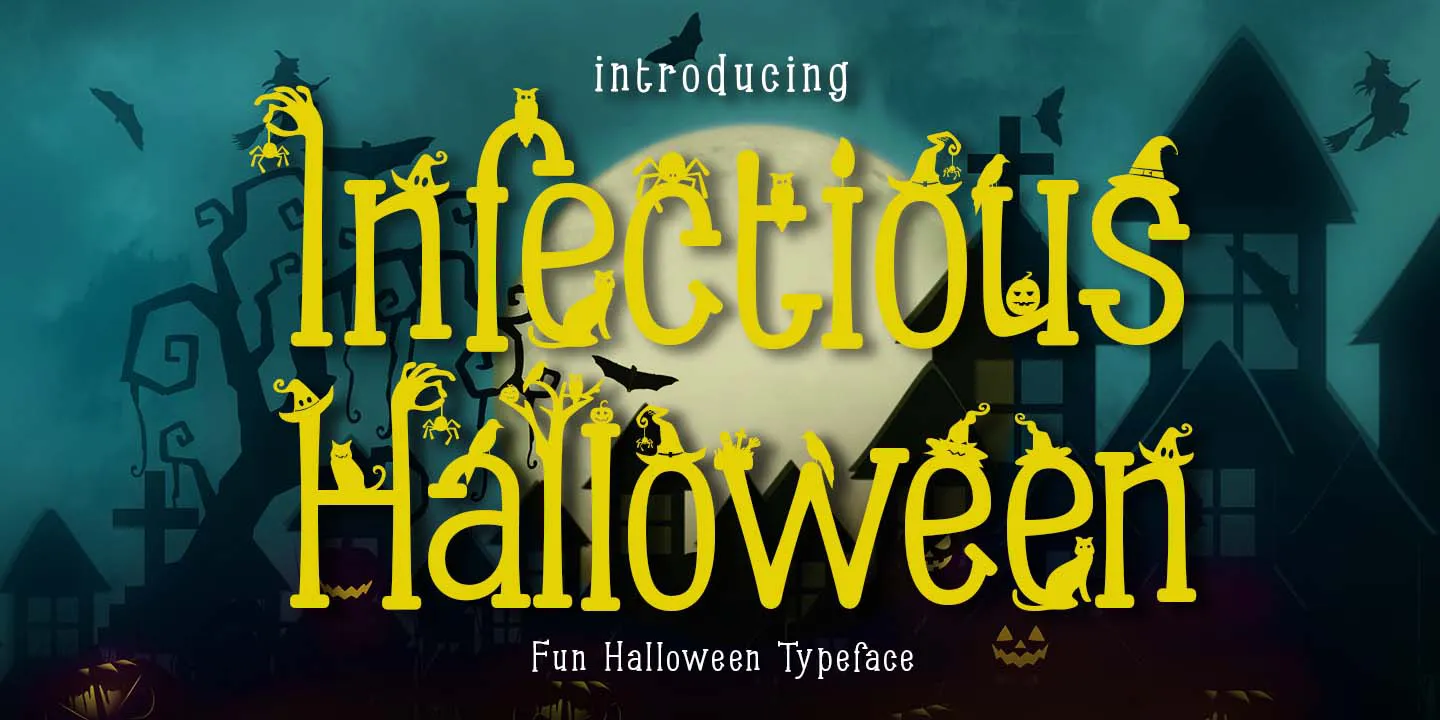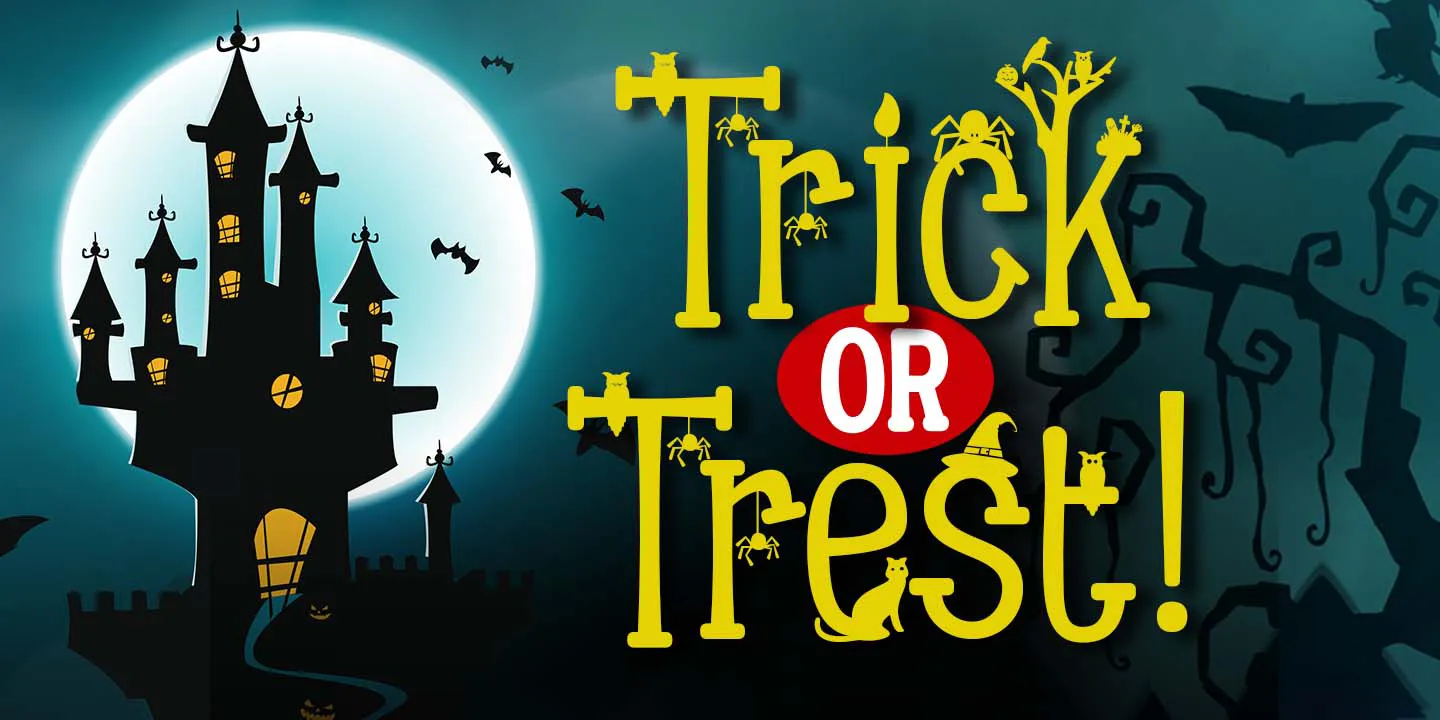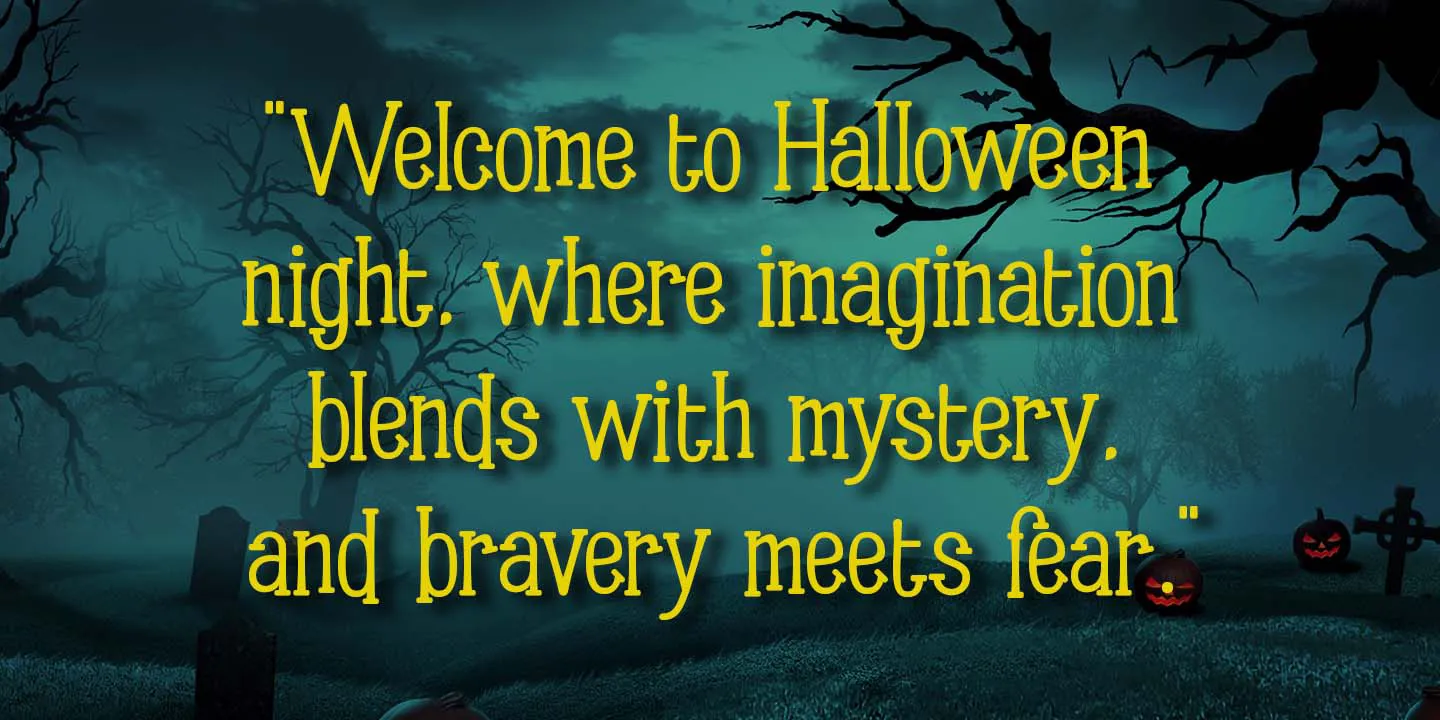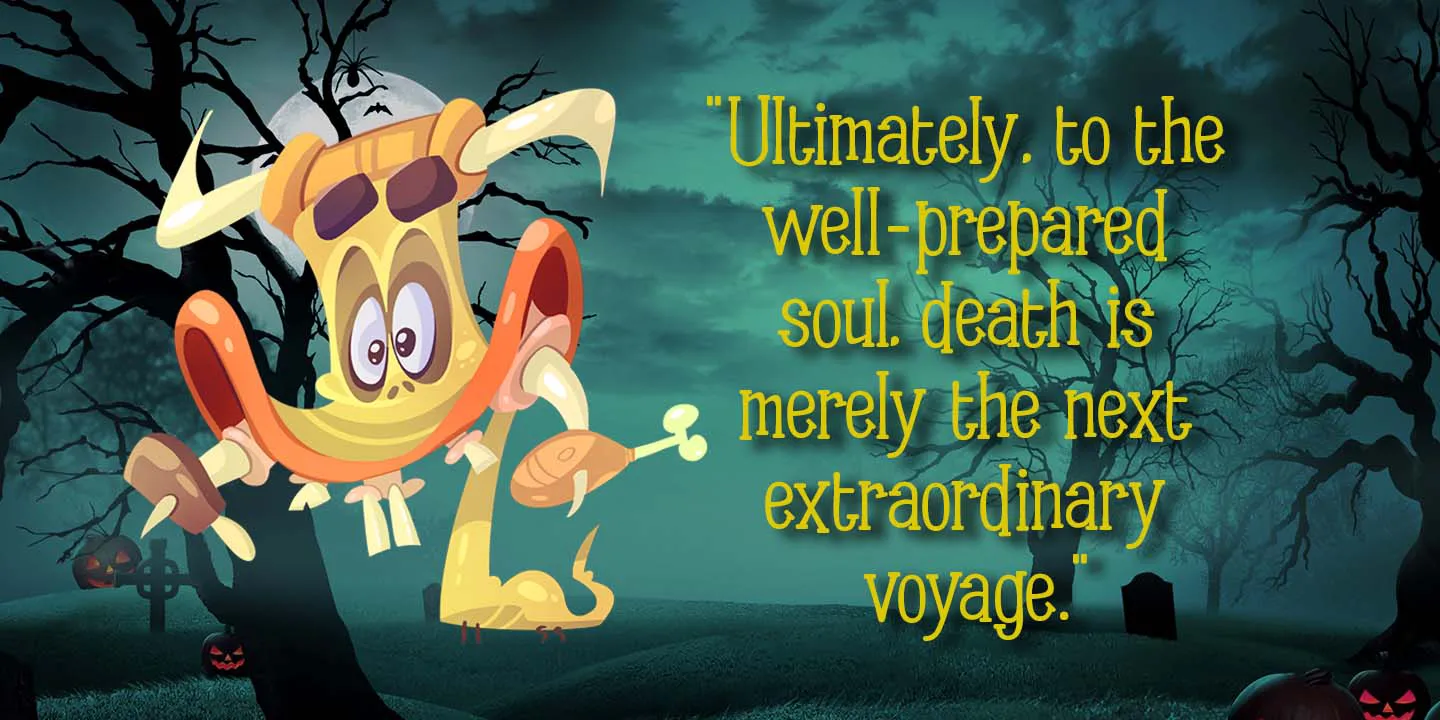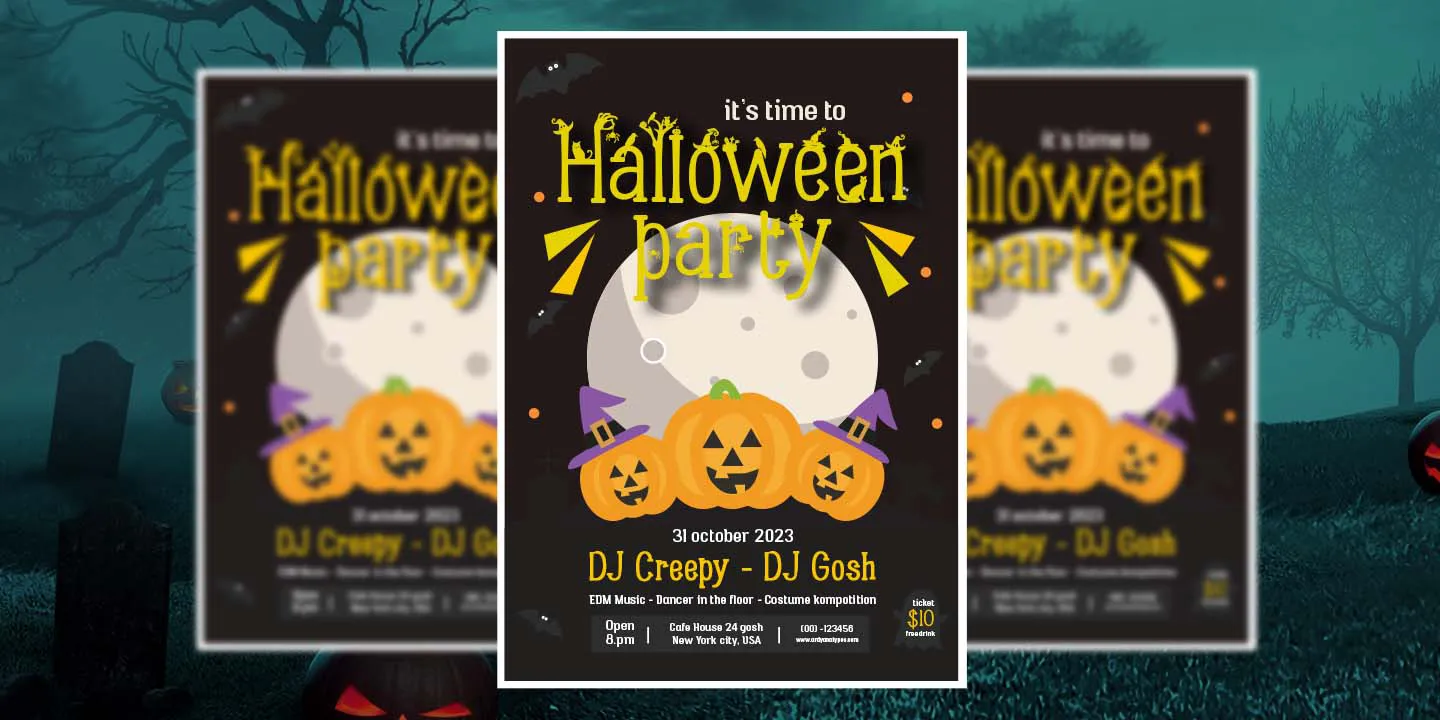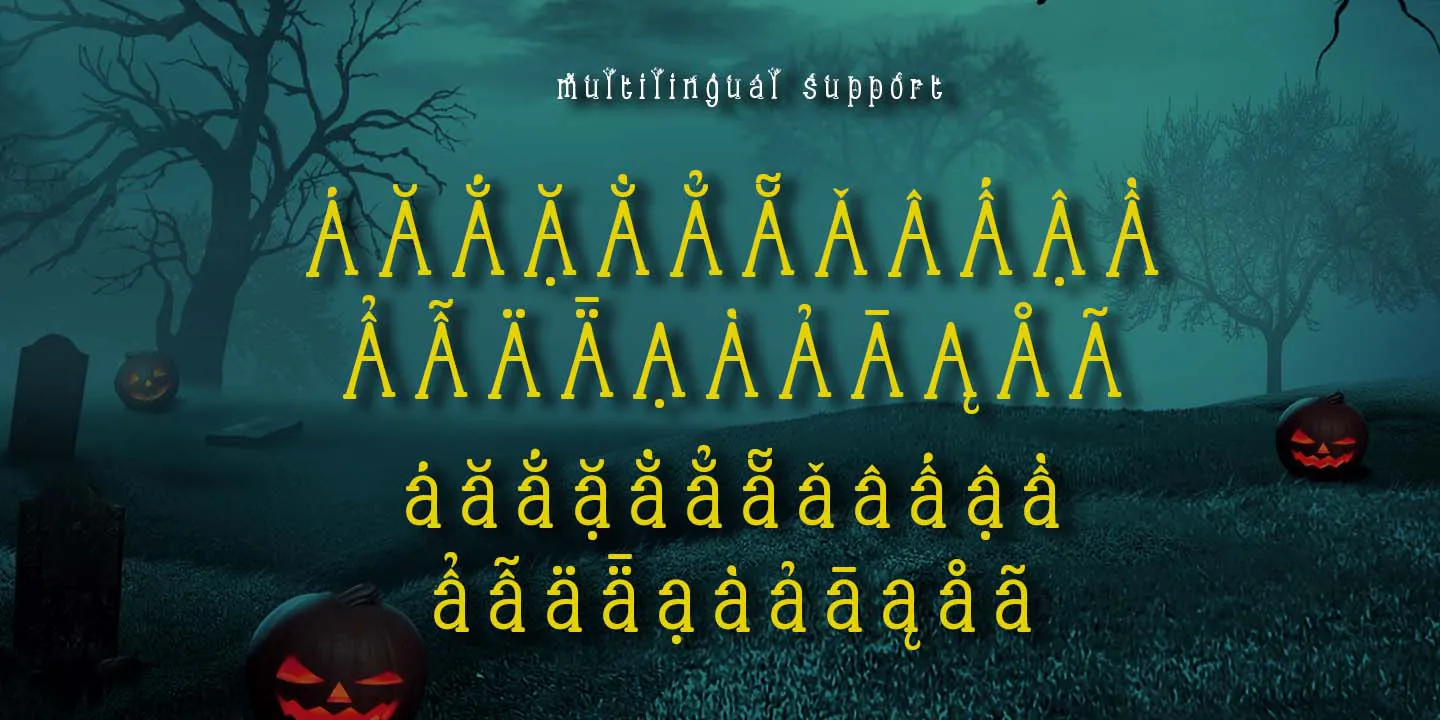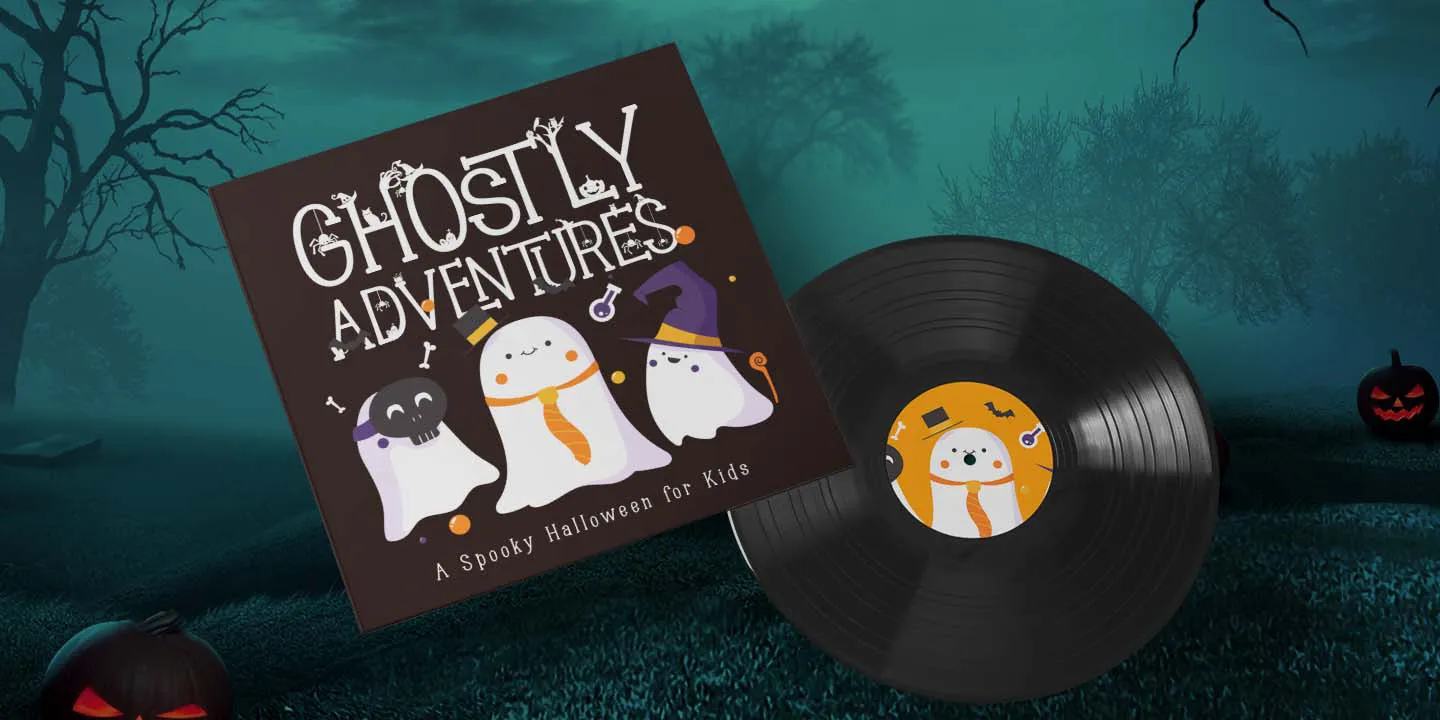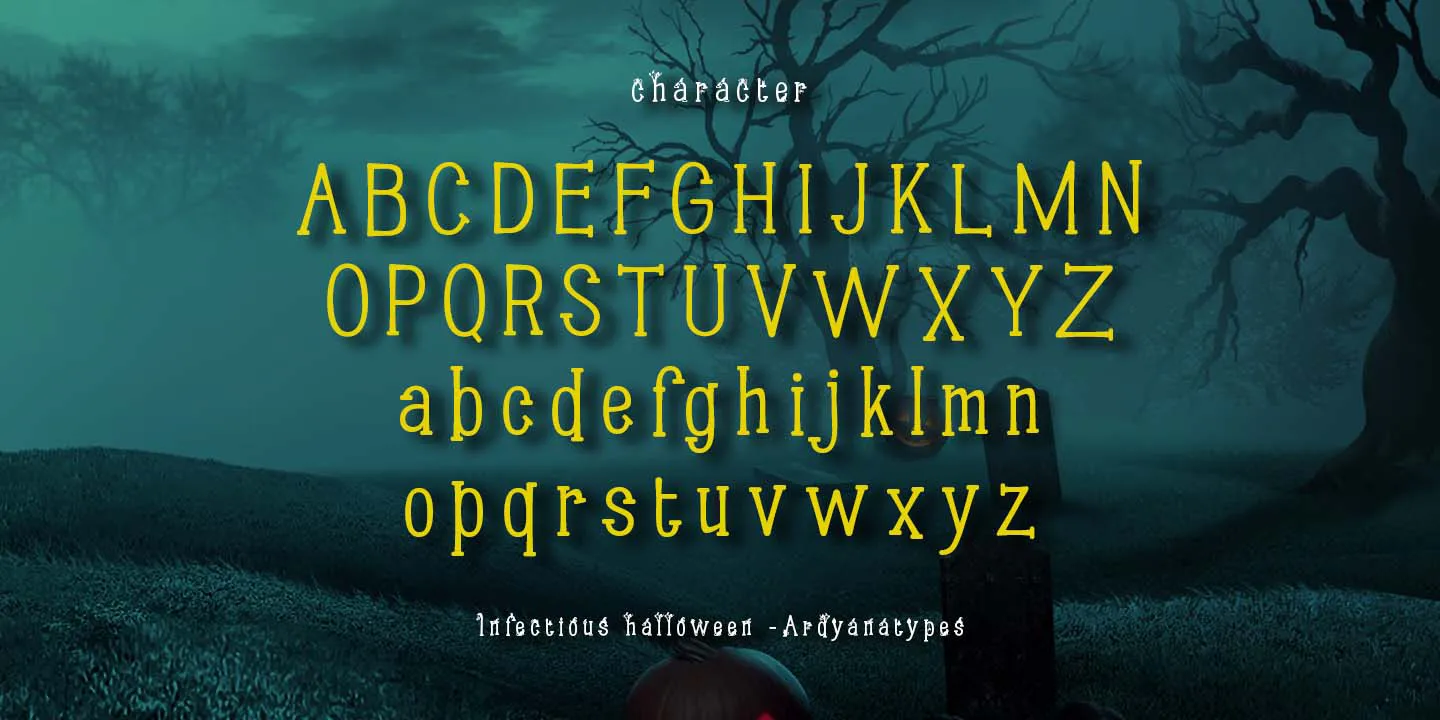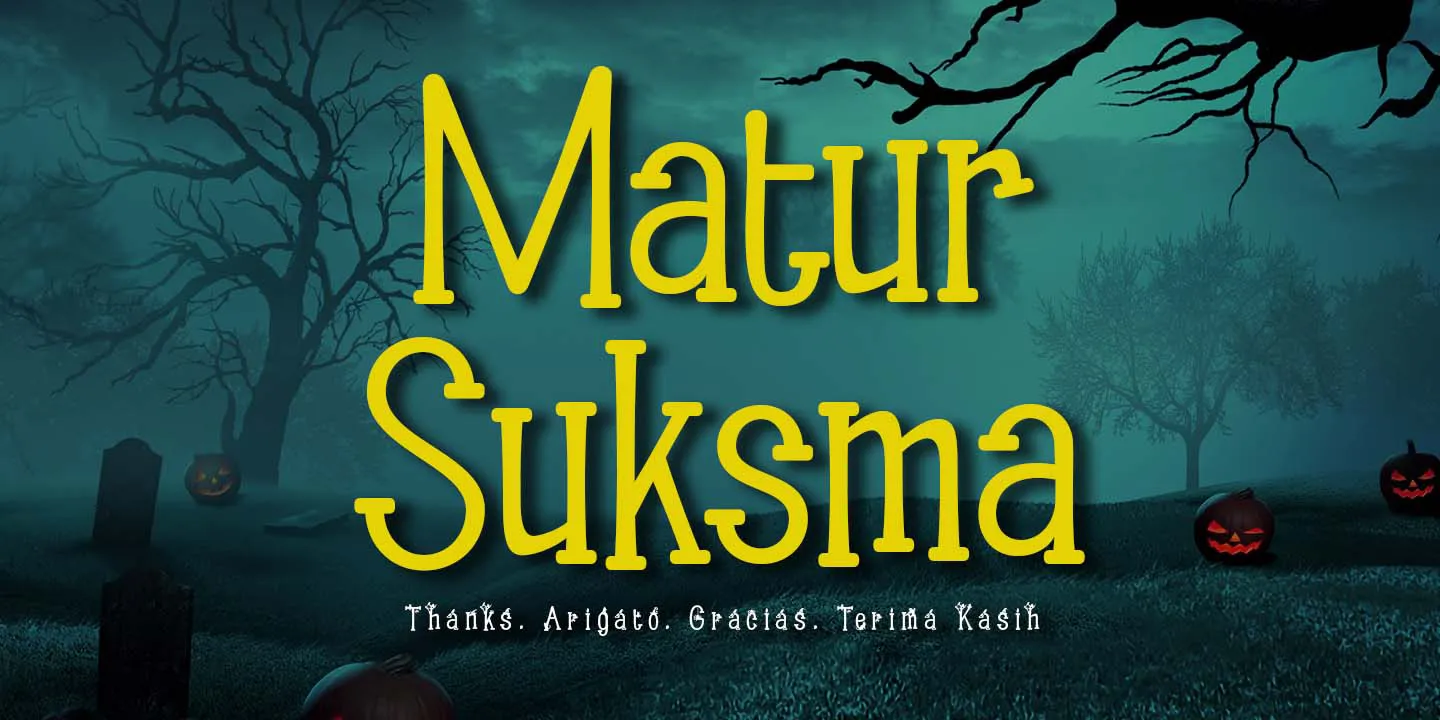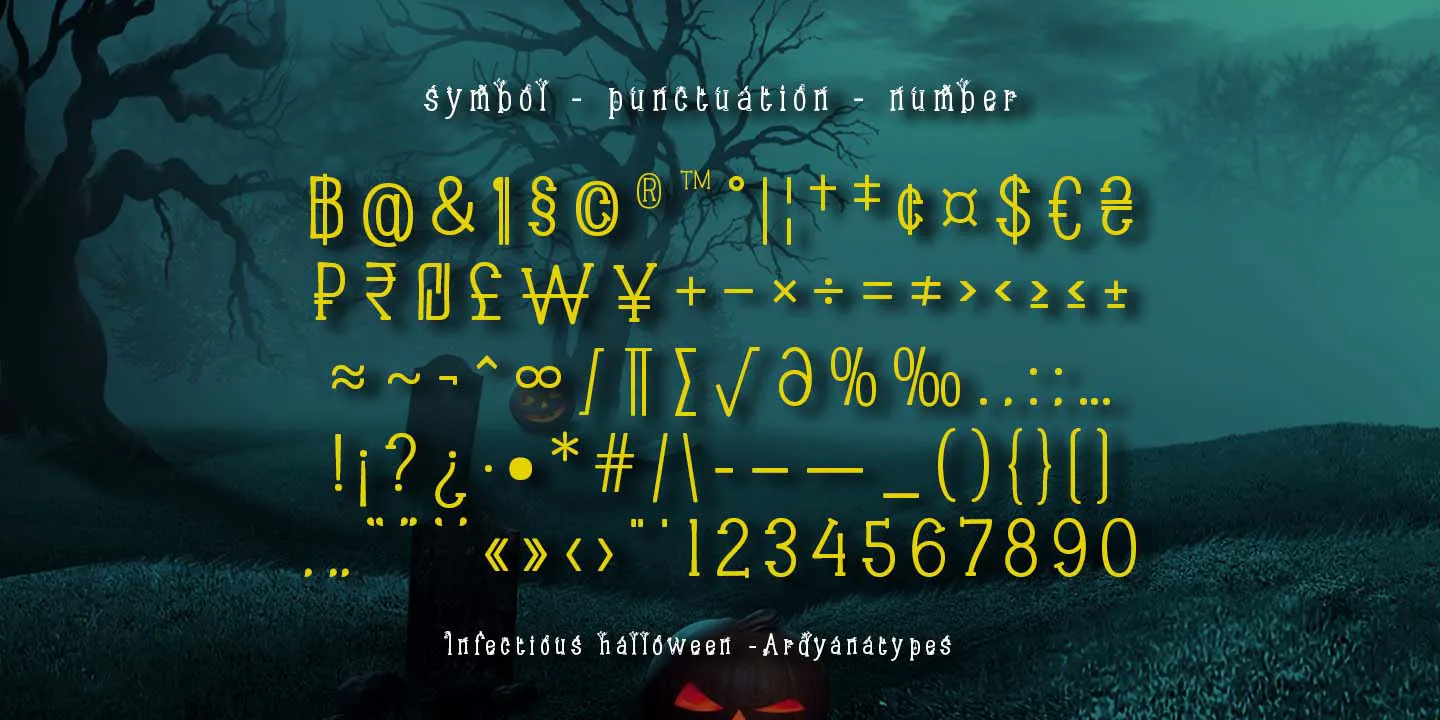
Infectious Typeface
Infectious is a Halloween themed font with unique shapes that invite curiosity. Each letter is inspired by ancient magical symbols, with sharp strokes and curved lines that create a mysterious atmosphere.
The font is not only visually appealing, but also interactive thanks to its advanced OpenType feature. Users can combine letters, slashes, and ligatures to create creative and unexpected looks.
Designed to support multiple languages, Infectious is ideal for use as headlines and display elements in Halloween designs. From invitations to posters, this font will add a magical touch to any project and make Halloween night even more special.
• AND AND
• ATA ATA
• ETE ETE
• ITI ITI
• OTO OTO
• STH STH
• STO STO
• STU STU
• UTU UTU
• AJ AJ
• AS AS
• AT AT
• CA CA
• CH CH
• EA EA
• EH EH
• EM EM
• EN EN
• ET ET
• EV EV
• EW EW
• EX EX
• FH FH
• FK FK
• FL FL
• FU FU
• HT HT
• IT IT
• LA LA
• LE LE
• LI LI
• LL LL
• LO LO
• LU LU
• LY LY
• MT MT
• NT NT
• OO OO
• ST ST
• TA TA
• TH TH
• TM TM
• TN TN
• TO TO
• TR TR
• TT TT
• TU TU
• dj dj
• es es
• ft ft
• zz zz
• ; ;
• { {
• } }
• = =
• > >
• < <